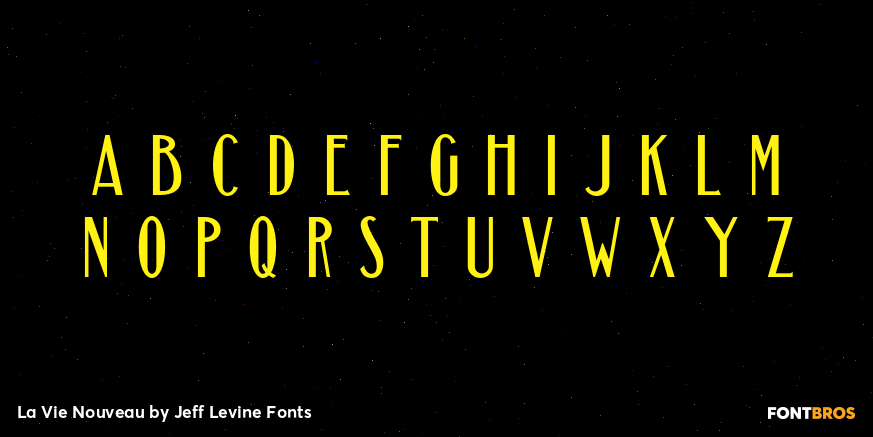
La Vie Nouveau
Buy NowEarly 1900s songwriters had a penchant for devising lengthy titles for their compositions.
A perfect example from 1909, 'It Is Hard to Kiss Your Sweetheart When the Last Kiss Means 'Good Bye'” is a whopping fourteen words long.
The sheet music for this piece has a hand lettered, Art Nouveau sans serif design which became the working model for La Vie Nouveau JNL [which translates to 'the new life”], and is available in both regular and oblique versions.